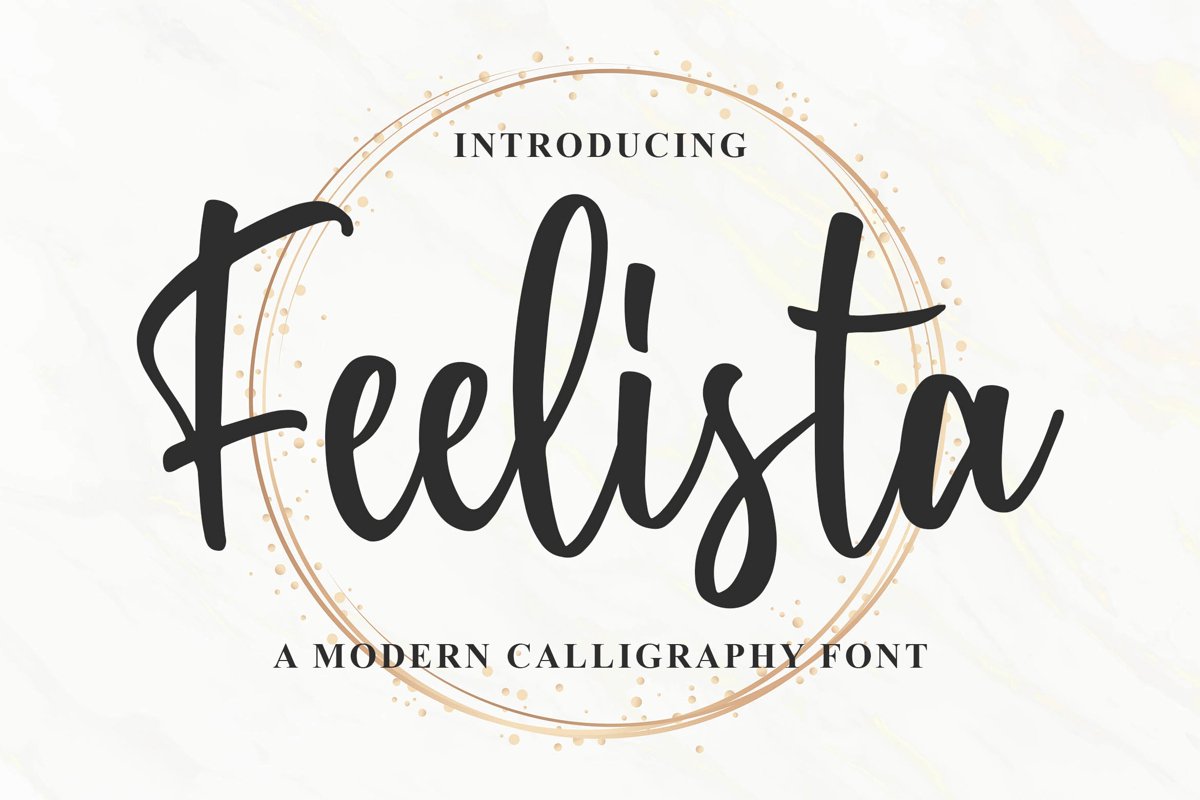
Introducing of our new product the name is Feelista a Modern Calligraphy Font. Feelista inspired by modern calligraphy style this font is a fun theme very good for display, wedding, valentine theme, logotype and etc